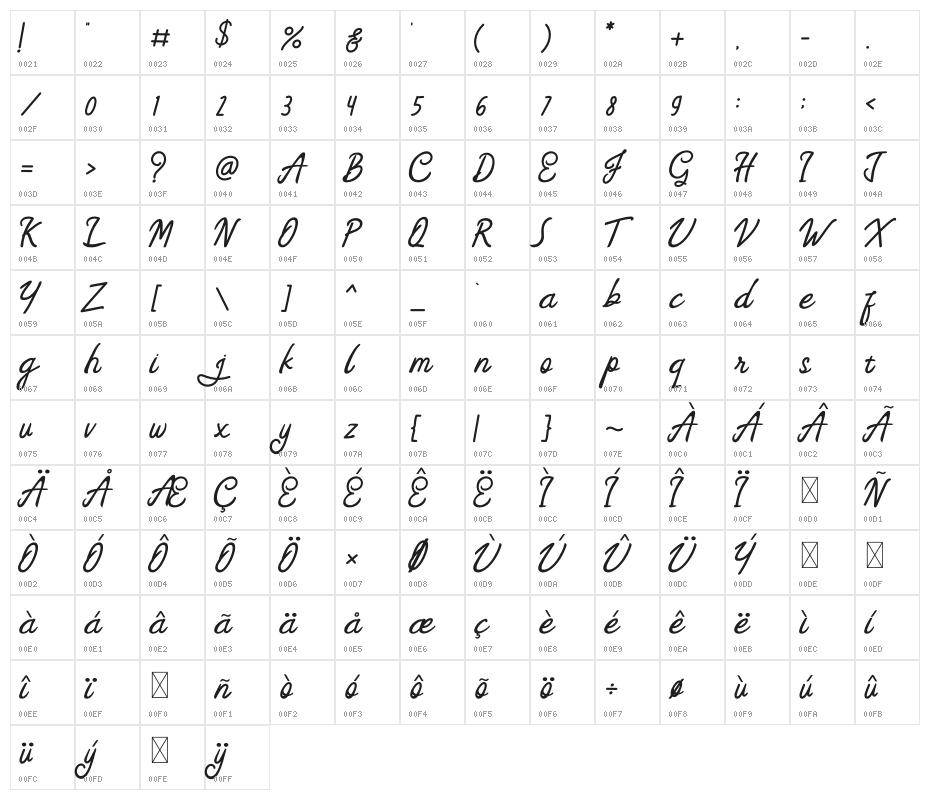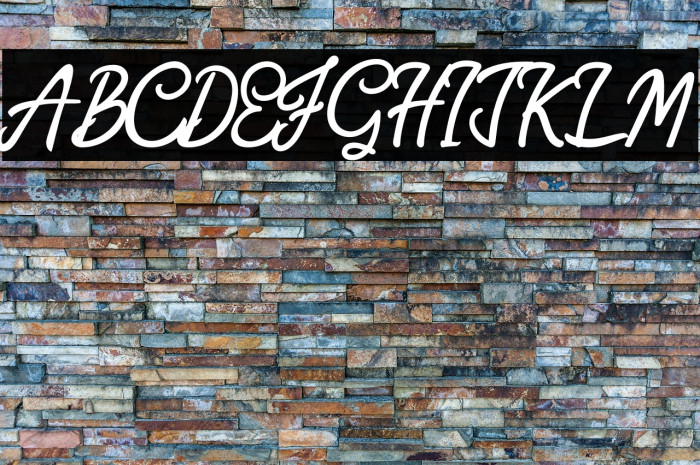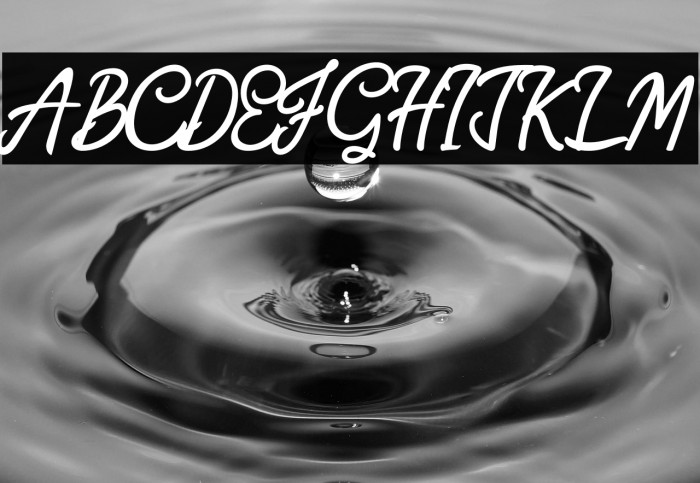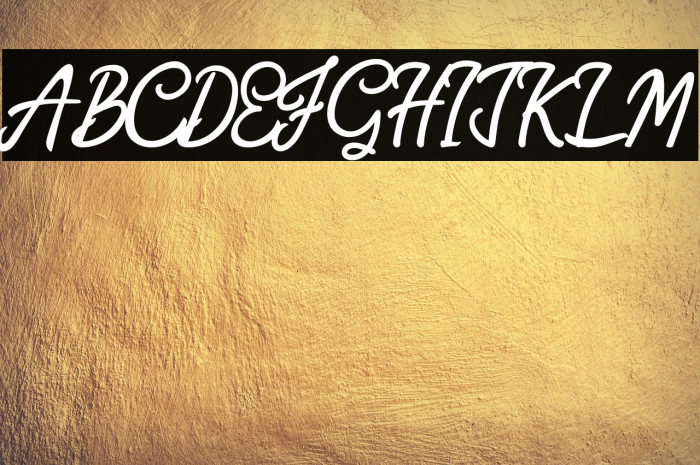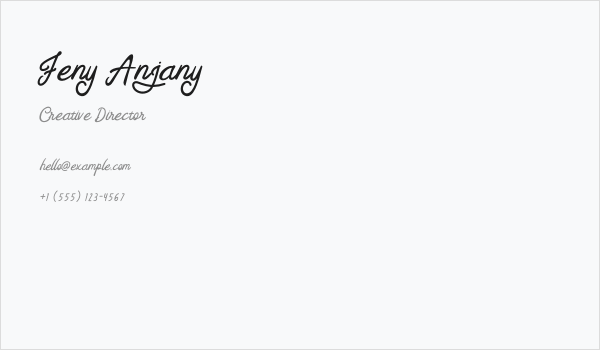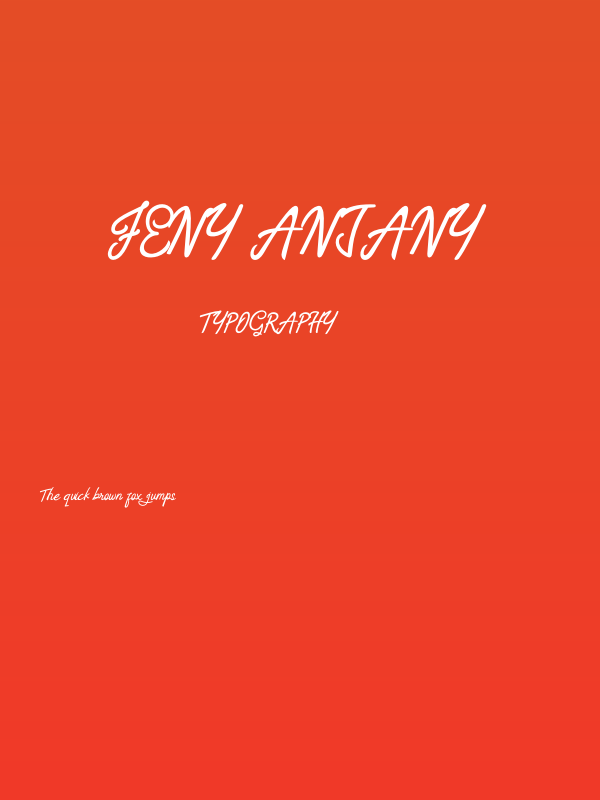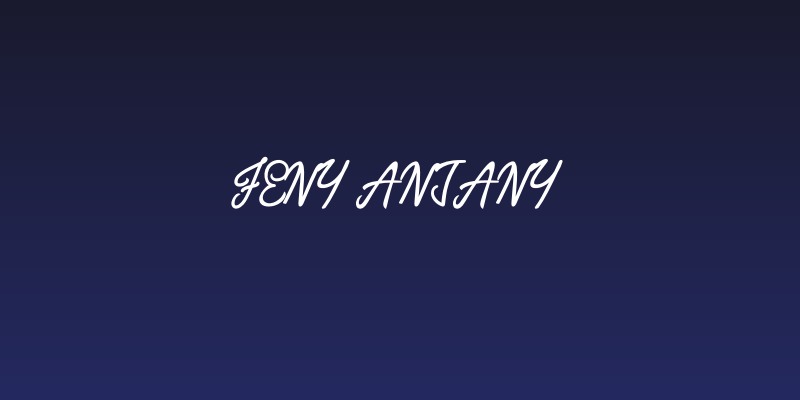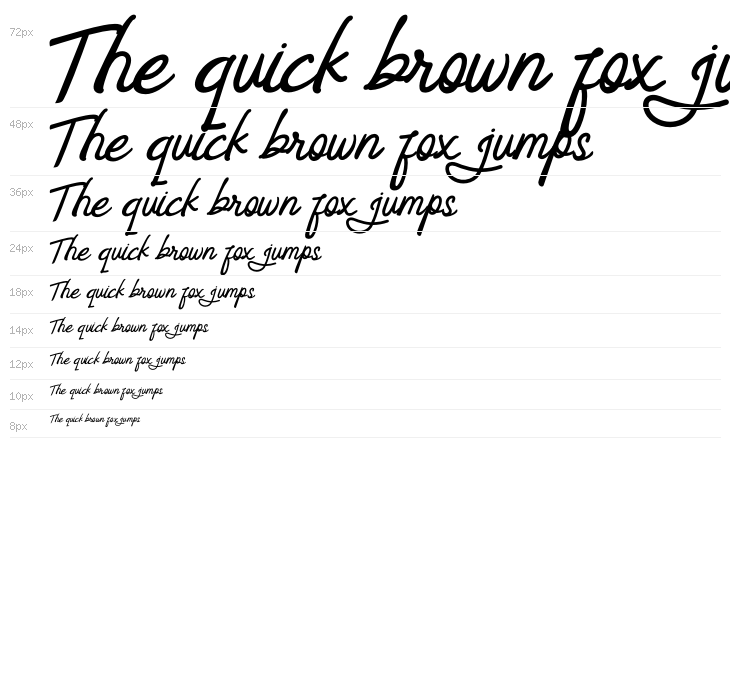
Feny Anjany Font
Feny Anjany Description
This font features a dynamic and fluid script style, characterized by its elegant, flowing lines and cursive letterforms. The uppercase letters are bold and slightly slanted, giving a sense of movement and grace. The lowercase letters maintain a consistent style with smooth connections between characters, enhancing readability while retaining a handwritten feel. The numerals and special characters are designed to complement the overall aesthetic, with a balanced mix of curves and angles. This font exudes a sense of sophistication and creativity, making it suitable for a variety of design applications.
| Overall Style | Elegant, Creative |
| Use Case | Logos, Invitations, Decorative Text |
| Proposed Projects | Ideal for wedding invitations, branding projects, greeting cards, and elegant signage. |